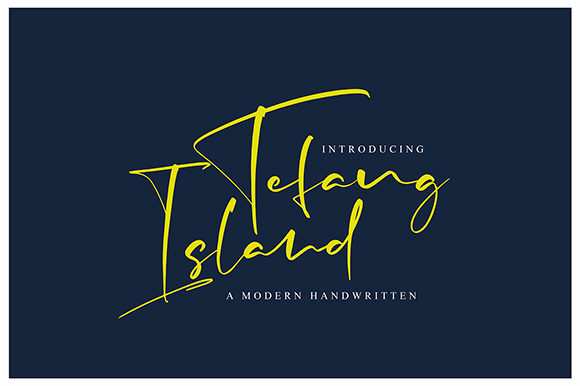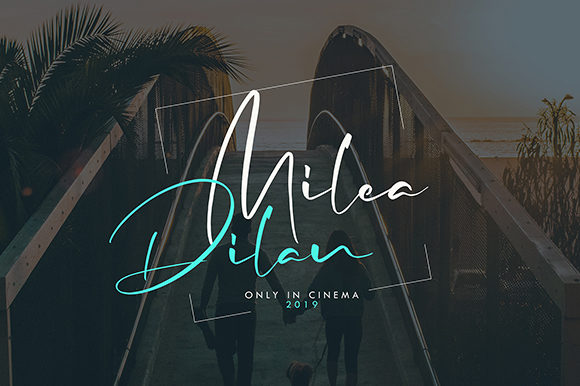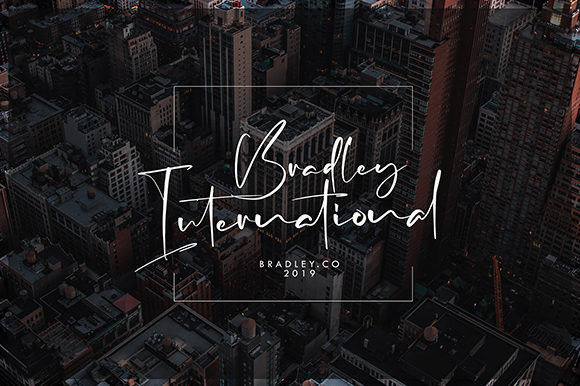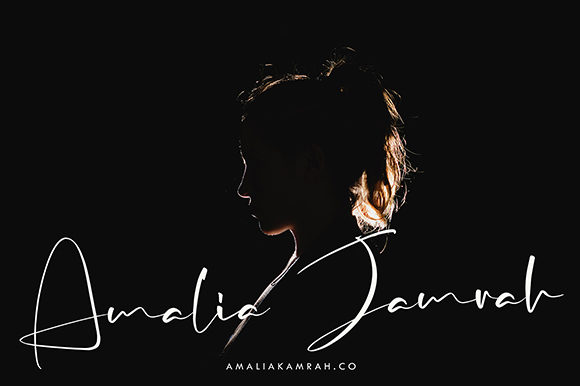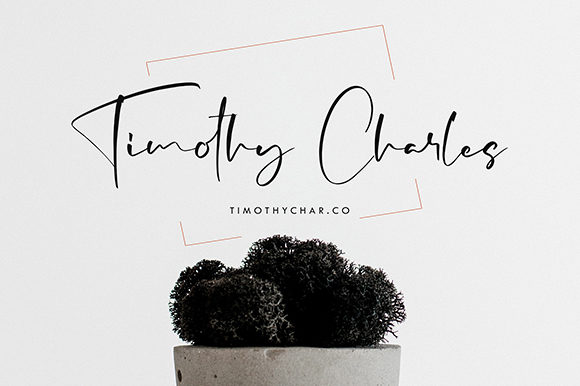
HomeScript FontsTefang Island Font Script Fonts Tefang Island Font FacebookXPinterestWhatsApp Tefang Island Font Poster 2 Tefang Island Font Poster 3 Tefang Island Font Poster 4 Tefang Island Font Poster 5 About Tefang Island Font Tefang Island is a beautiful and amazing handwritten font with a cool vibe. Fall in love with its unique charm. DOWNLOAD NOW People also explored Curly Funky Font Bigsta Font Sugar Lover Font Brenda Script Sparrowhawk Pyneapple Font Graveyard Font Bougenvil Font Antariksa Font 342 0 TagsTefang Island Font Previous articleAnsttin Kishon FontNext articleDatho Ostma Font LEAVE A REPLY Cancel reply Comment: Please enter your comment! Name:* Please enter your name here Email:* You have entered an incorrect email address! Please enter your email address here Website: Save my name, email, and website in this browser for the next time I comment. Personal Use Free Goldsaber Personal Use Free Read more about this font Sweet Beautiful Personal Use Free Read more about this font Love Ya Personal Use Free Read more about this font Expaing Personal Use Free Read more about this font BLOG Top 10 Handwritten Fonts That Elevate Your Designs Top 10 Handwritten Fonts That Will Elevate Your Designs Handwritten fonts bring a warm, personal touch to every creative project. Whether you're designing logos, invitations,... Best Fonts for YouTube Videos: Make Your Thumbnails Stand Out Top 7 Google Fonts Alternatives for Faster and Privacy-Friendly Web Design (2025) The 10 Best Handwriting Fonts to Add Personality to Your Designs